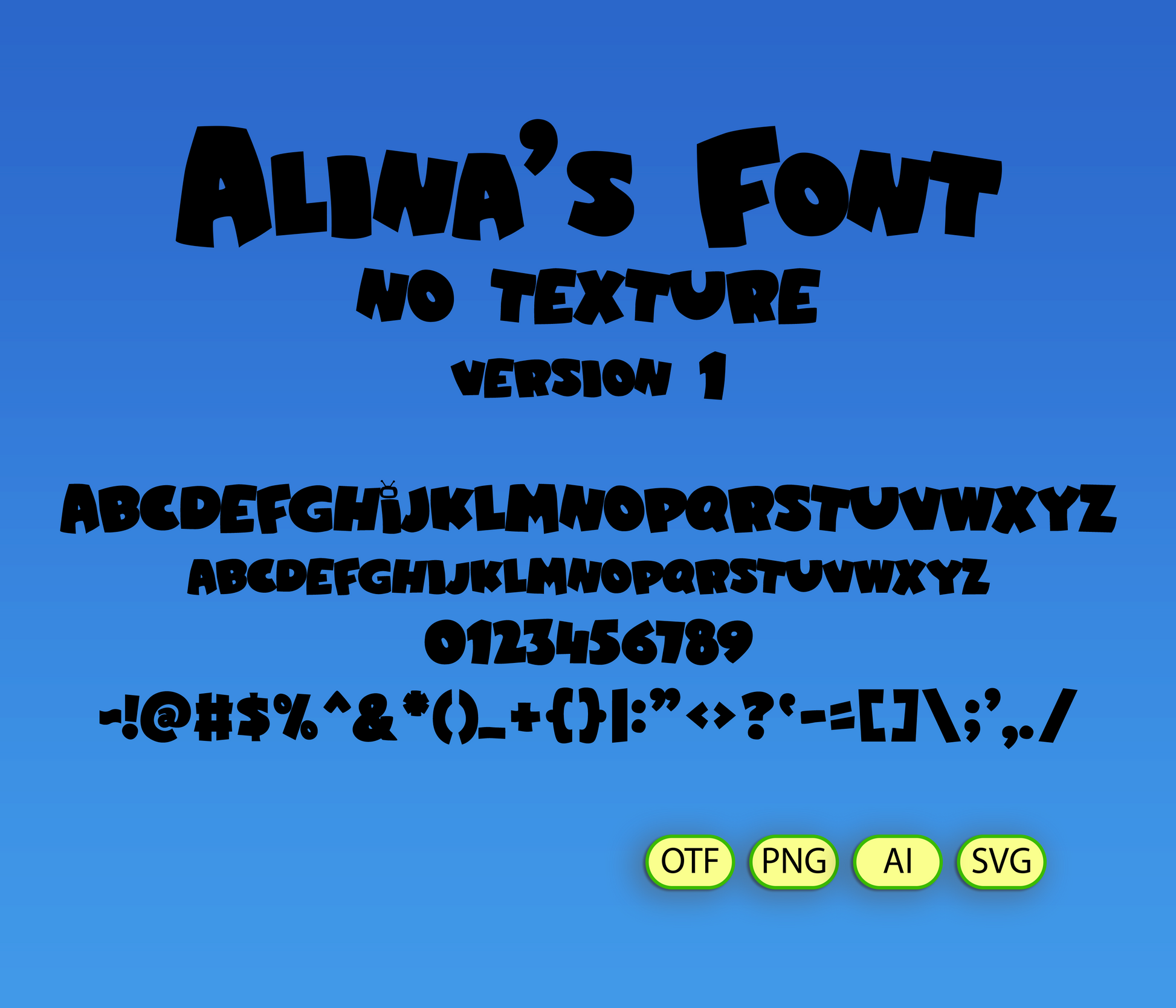
Suburban Comedy Font
Step into the world of quirky family satire with our specially designed font, capturing the essence of America's most irreverent animated household. Perfect for fans, content creators, and designers who appreciate witty humor and bold character design, this font brings the dynamic spirit of New England's funniest family to your projects.
What's This Font All About?
Drawing inspiration from contemporary animation comedy, our font features bold, rounded characters that mirror the show's distinctive art style. With a complete character set, it's designed to bring that perfect blend of humor and charm to any project that needs a touch of satirical flair.
Family Guy Font